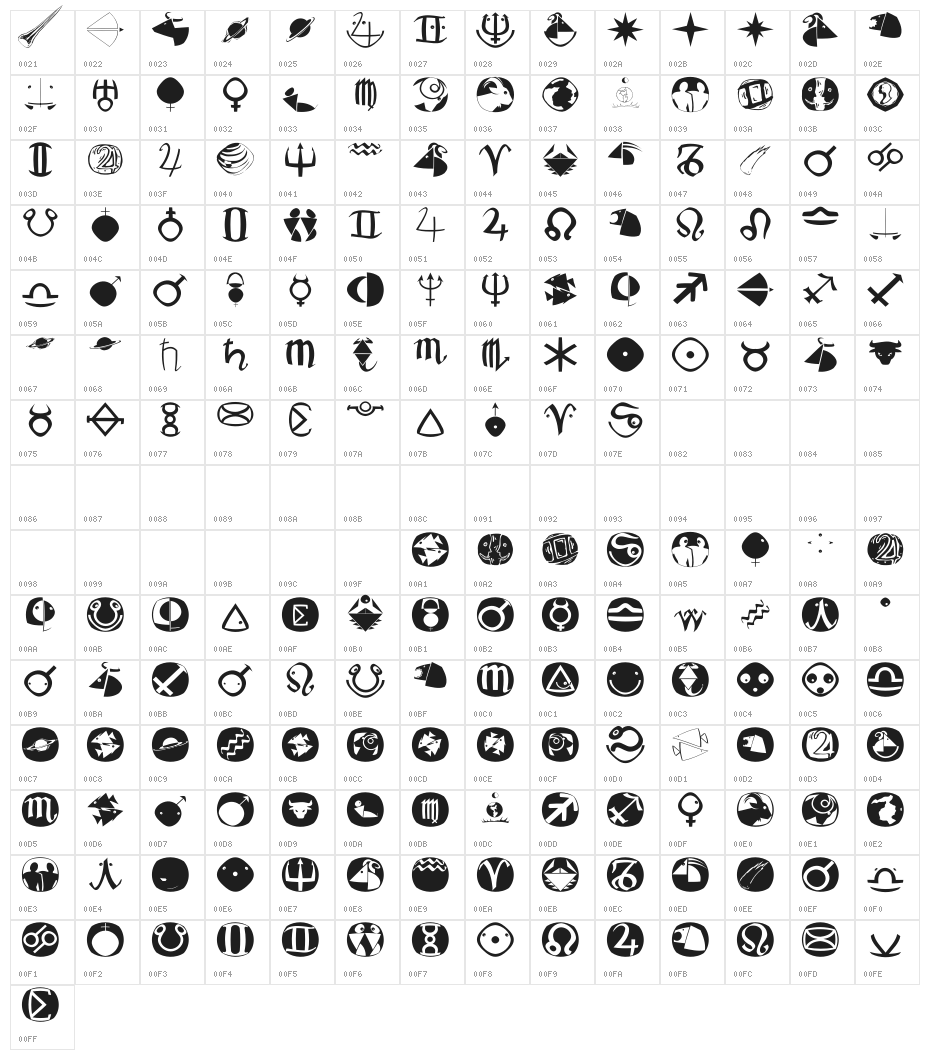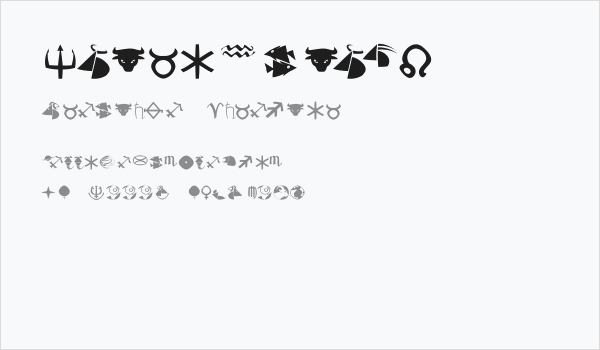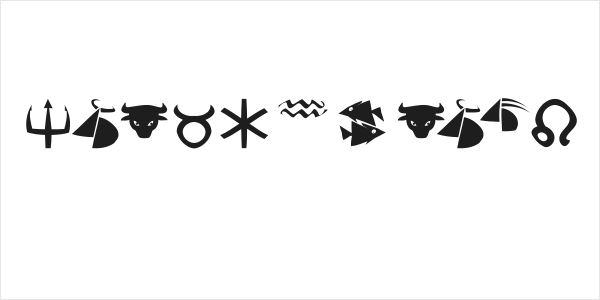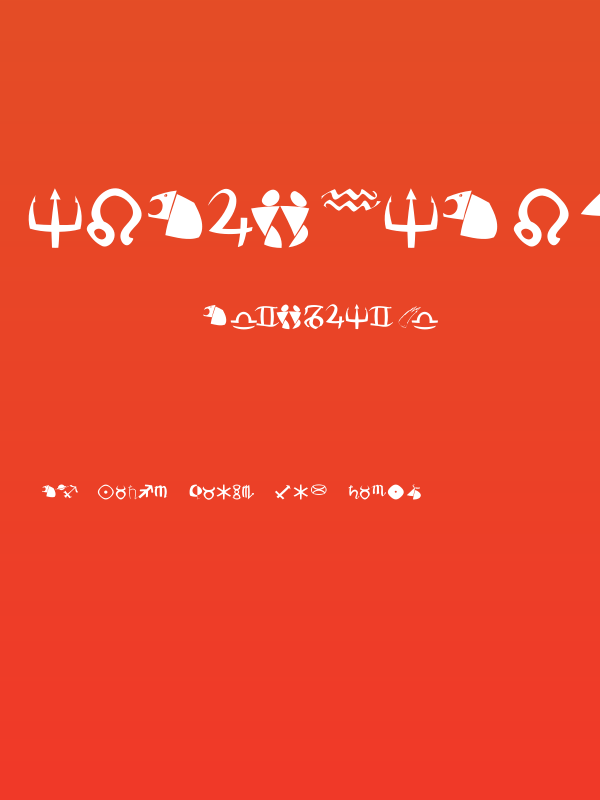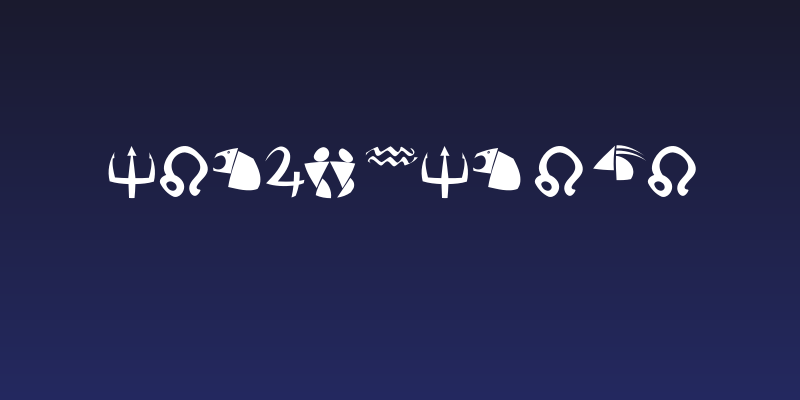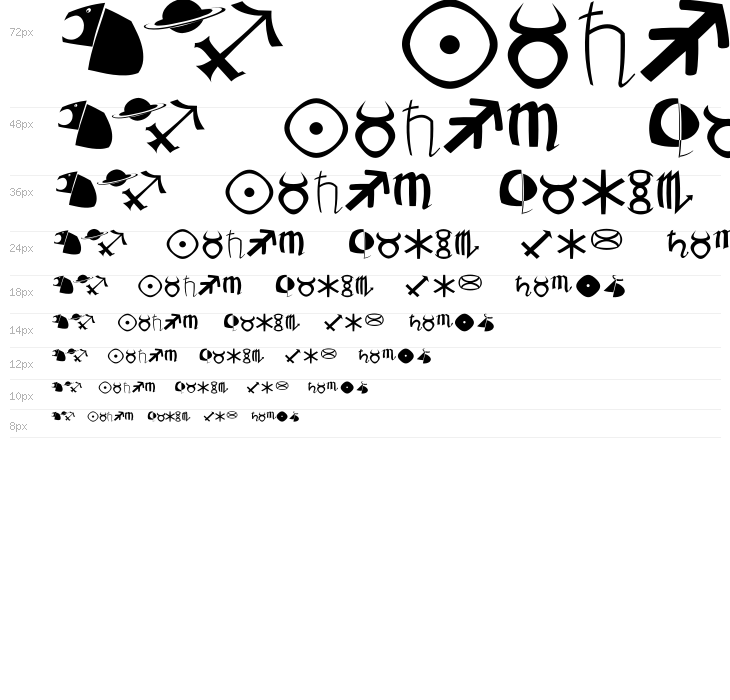
AstroBatsFS Font
AstroBatsFS Description
This is a decorative font featuring a collection of unique symbols and shapes inspired by astrological and celestial themes. Each character is a distinct graphic representation, incorporating elements such as planets, zodiac signs, and cosmic motifs. The design is bold and visually striking, with a playful and imaginative style that captures the mystery and allure of the cosmos. The symbols are intricately detailed, making them suitable for creative projects that require a touch of the mystical or otherworldly. The font's artistic flair makes it ideal for use in designs that aim to evoke a sense of wonder and exploration.